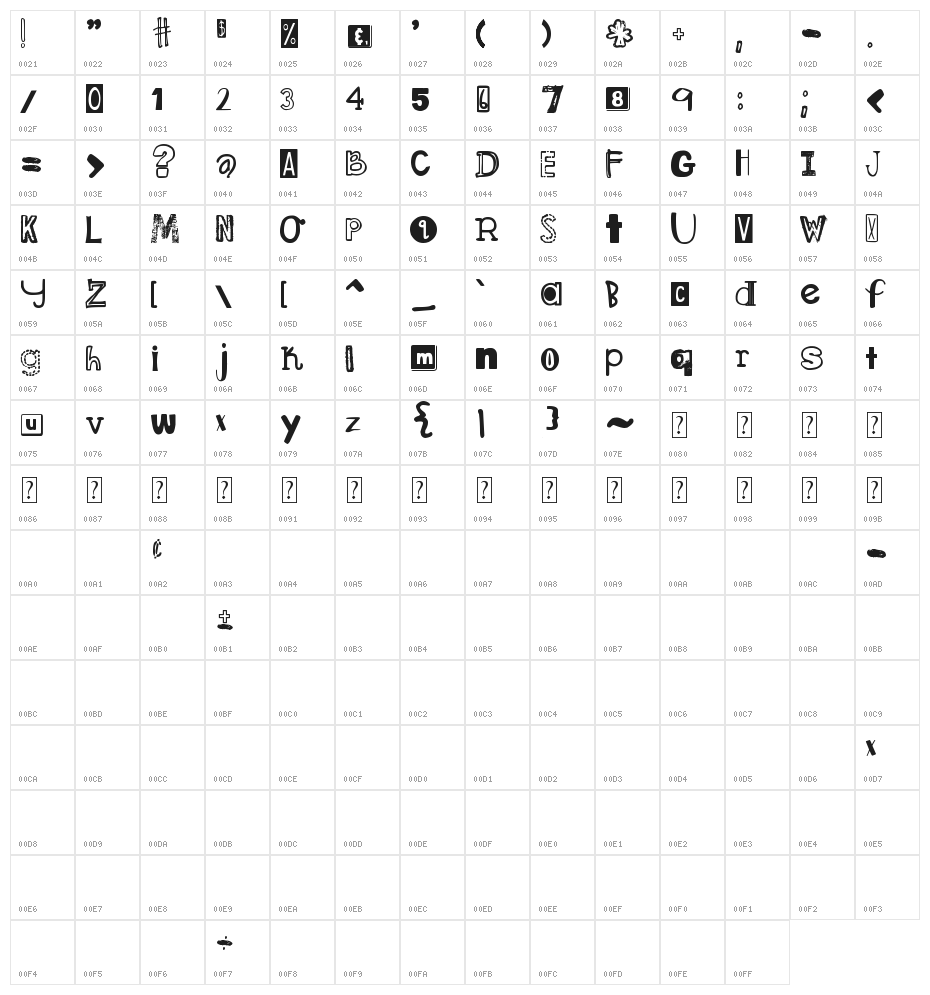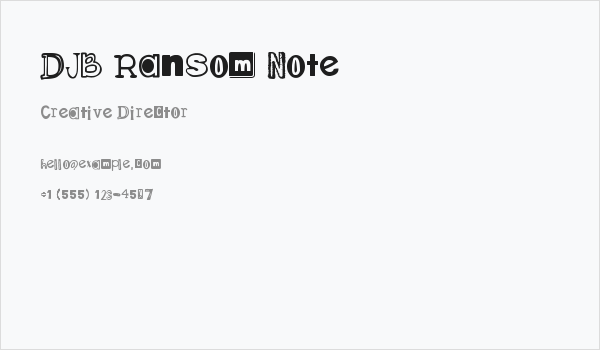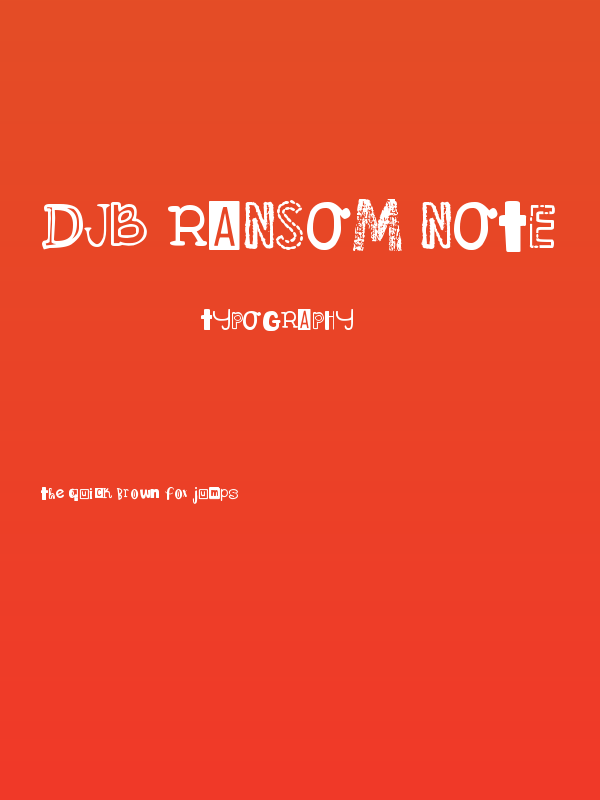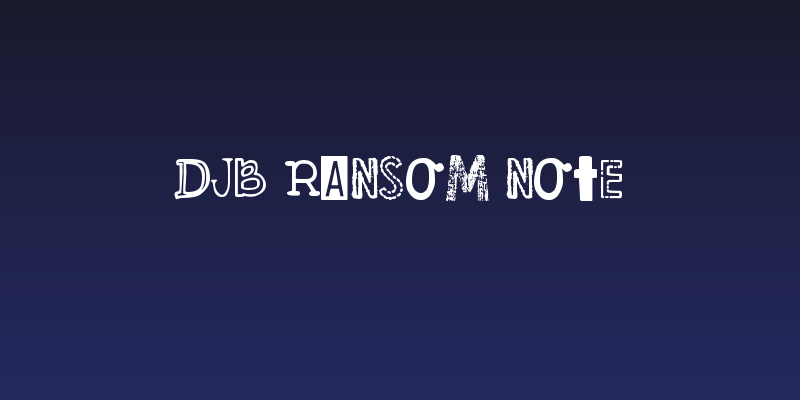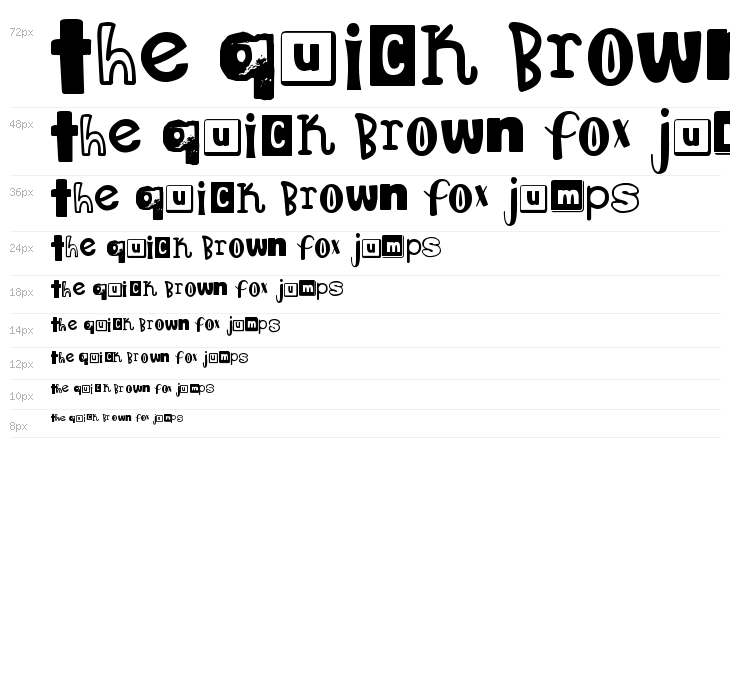
DJB Ransom Note Font
DJB Ransom Note Description
This font is a playful and eclectic mix of styles, reminiscent of cut-out letters from magazines or newspapers, often used in ransom notes. Each character is unique, with varying levels of boldness, texture, and decoration, giving it a distinctly chaotic and creative appearance. The uppercase and lowercase letters, as well as numbers and special characters, all exhibit a diverse range of designs, from solid fills to outlines and patterns. This diversity makes the font highly decorative and visually engaging, suitable for projects that require a quirky and unconventional look.
| Use Case | Headlines, Logos, Artistic projects |
| Proposed Projects | Ideal for creative projects such as posters, album covers, and artistic flyers where a unique and eye-catching style is desired. |